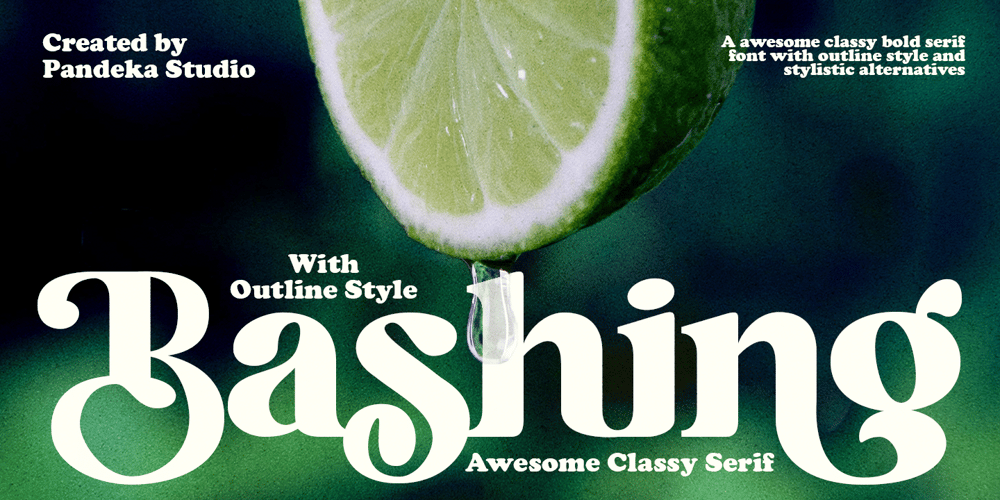
Bashing
Bashing font
Bashing Font Family was designed by Sagara Nararya and published by Pandeka Studio. Bashing contains 2 styles and family package options. Introducing Bashing, an extra bold serif font with soft, charming rounded edges and curves.Bashing brings chunky retro typography to the modern era and includes 70 additional special characters with extra flair and flourishes, providing you with a variety of custom text arrangementsFeatures Bashing Main Files Special Alternates and Ligatures and Outline version Instructions (Access special characters in all apps, even in Cricut Design) Accessible in Adobe Illustrator, Adobe Photoshop, Microsoft Word even Canva! PUA Encoded Characters. Fully accessible without additional design software Feel free to follow, like and share. Thanks so much for checking out my shop!Pandeka Studio